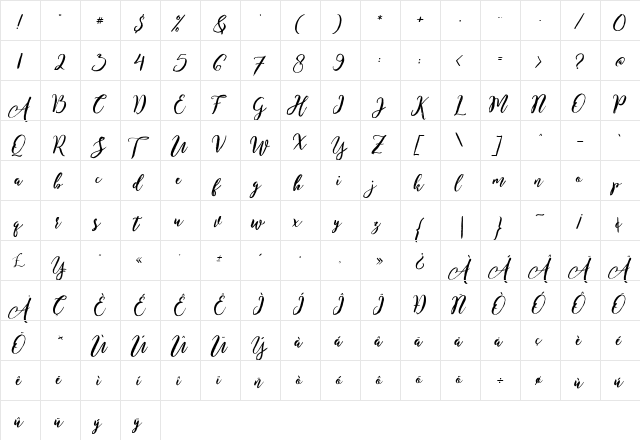
Enchanted Brush Regular
| Foundry | Hermansyah Getstudio |
| Designer | Hermansyah Getstudio |
Design Context for Enchanted Brush Typeface
Enchanted Brush brings a calligraphic fluidity to the page — its connecting strokes and expressive curves give it an unmistakably human quality.